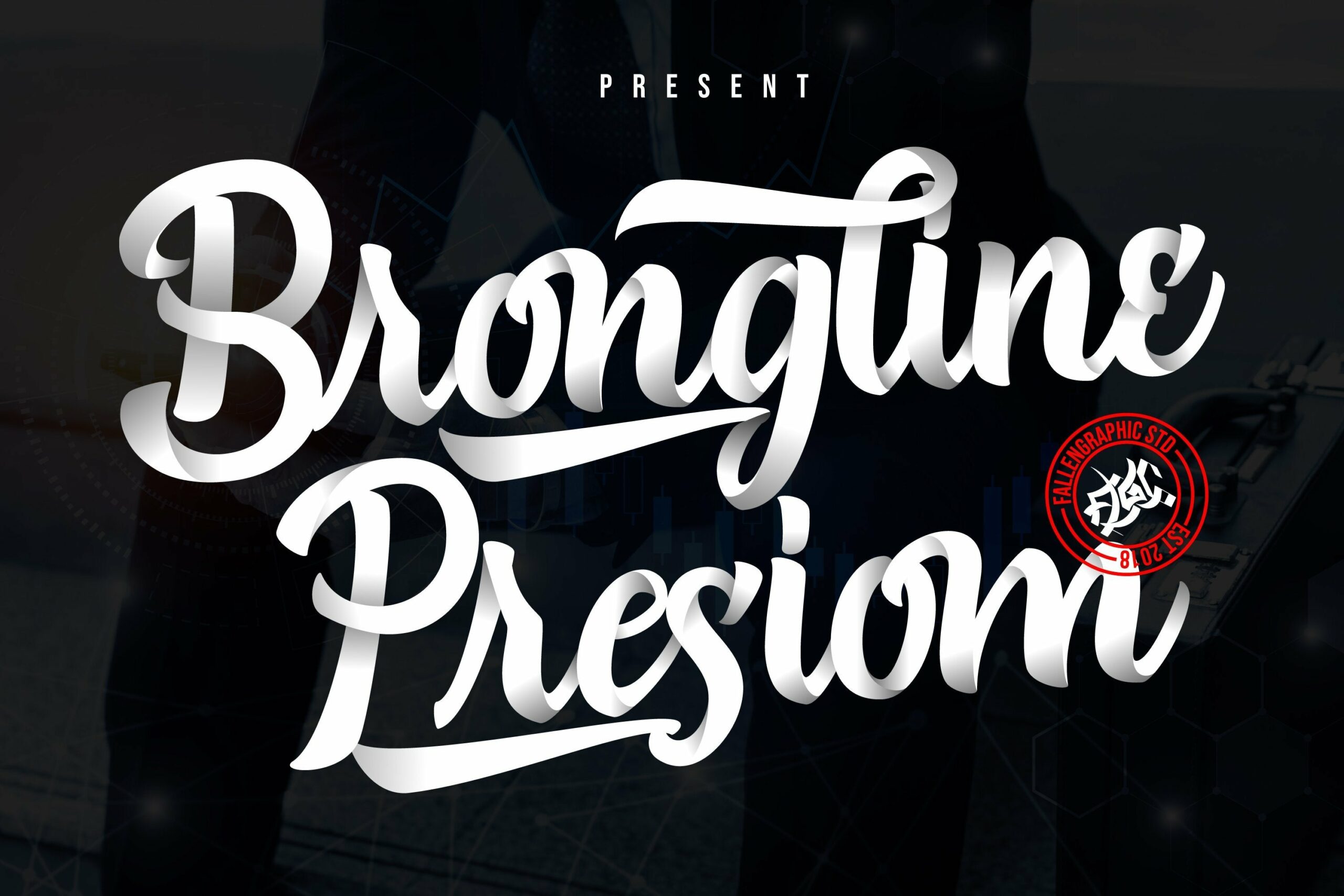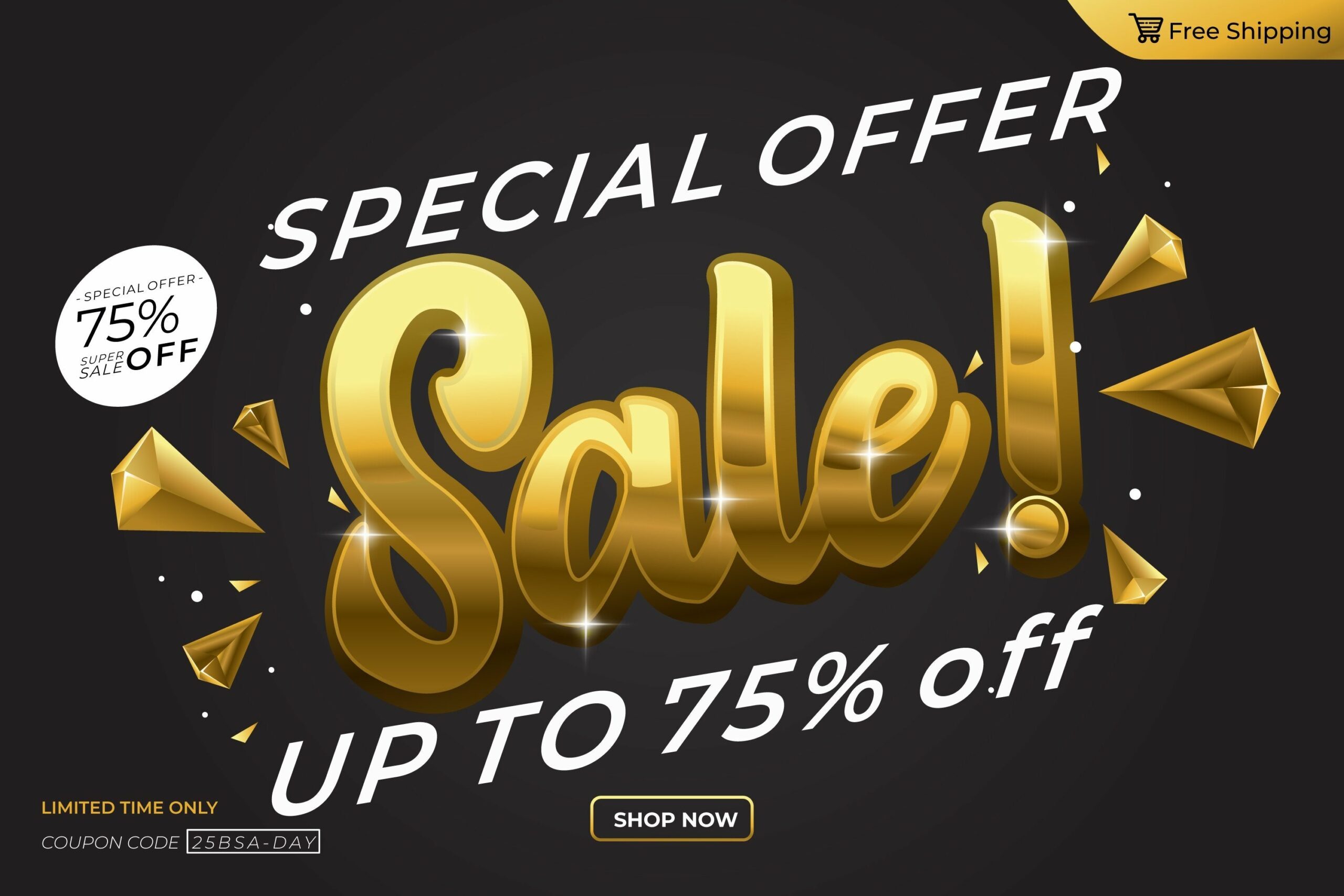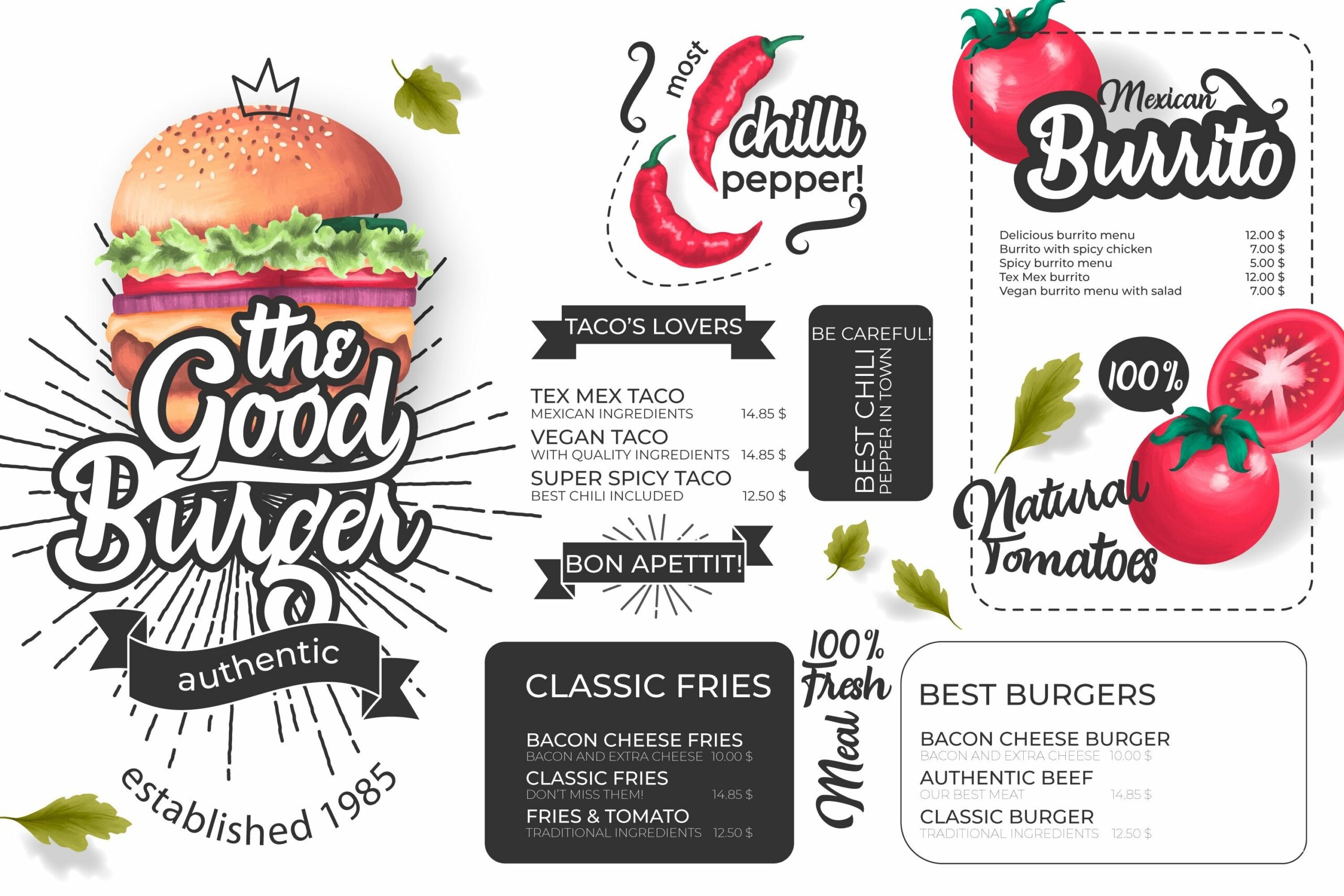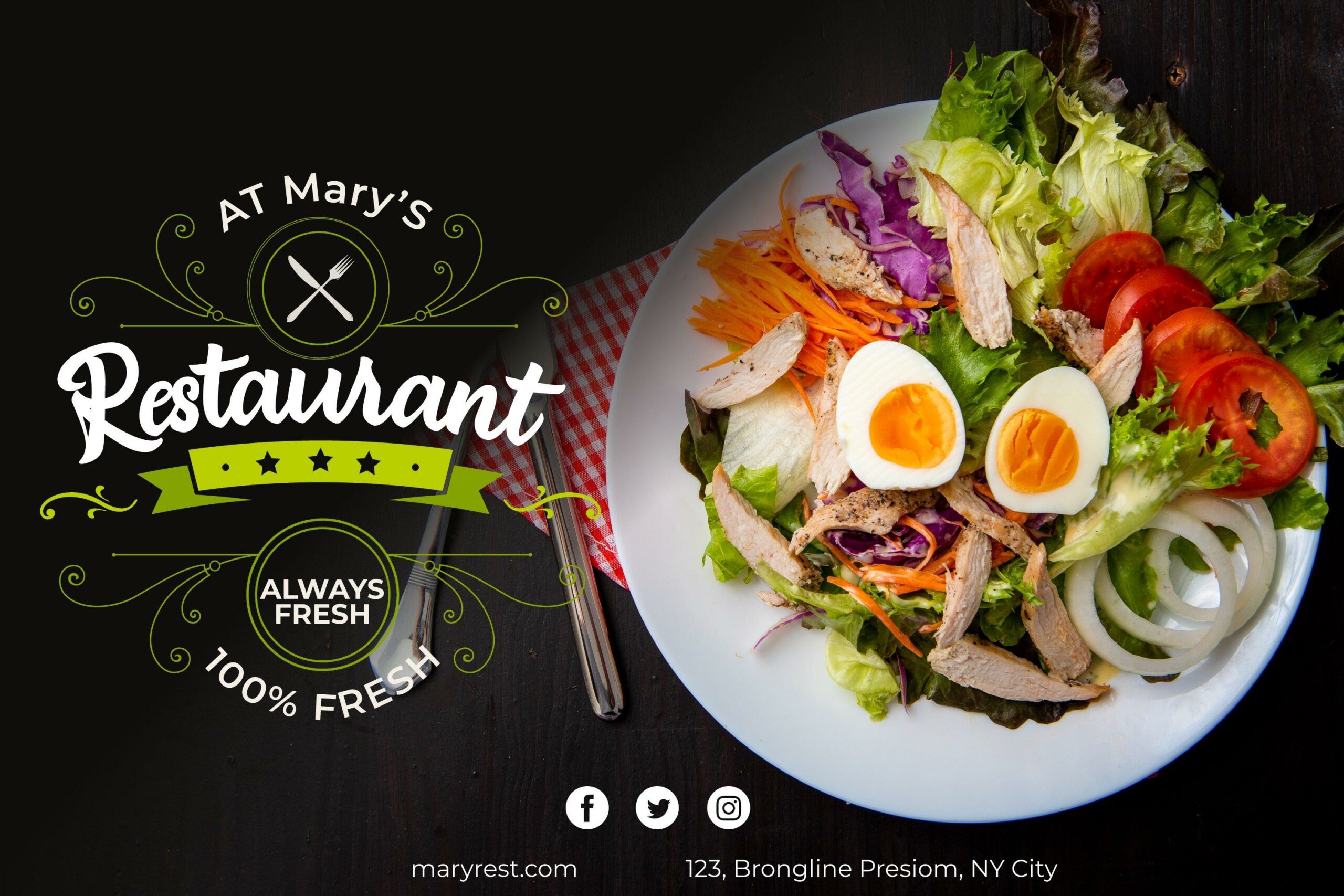
Brongline Presiom is a modern bold script font. It is perfect for Logo, branding, and much more! Features : PUA Encoded 100% Acessibility Standard Ligatures Stylistic alternate ( SALT ) Stylistic Set SS01-SSO5 If you don’t have a program that supports OpenType features such as Adobe Illustrator and CorelDraw X Versions, you can access all the alternate glyphs using Font Book (Mac) or Character Map (Windows).To Access Alternate Characters Click The Link Below: How to access alternates in Adobe illustrator CS https://www.youtube.com/watch?v=geL0Ye02RykHow to access alternates in Adobe illustrator CC https://www.youtube.com/watch?v=V25yiUh8BcE How to access alternates in Ms Wordhttps://www.youtube.com/watch?v=HxkhZiCuwEw How to access alternates in Coreldraw X7 https://www.youtube.com/watch?v=UBVsufJjons How to access alternates in Indesign CS https://www.youtube.com/watch?v=HgZTCxKG14Q How to access alternates in Adobe Photoshop CC https://www.youtube.com/watch?v=BYKXl58AdNY If you have any question, don’t hesitate to contact me by email :  Thanks and happy designing Thank You for purchase!